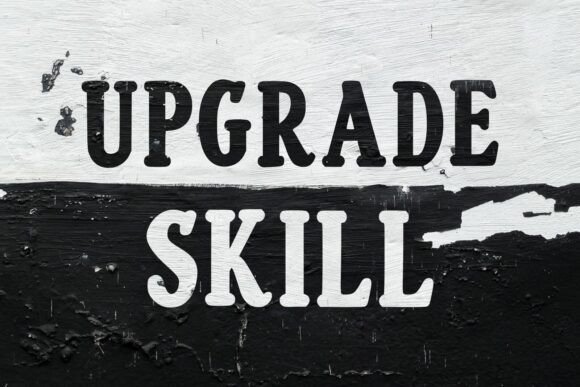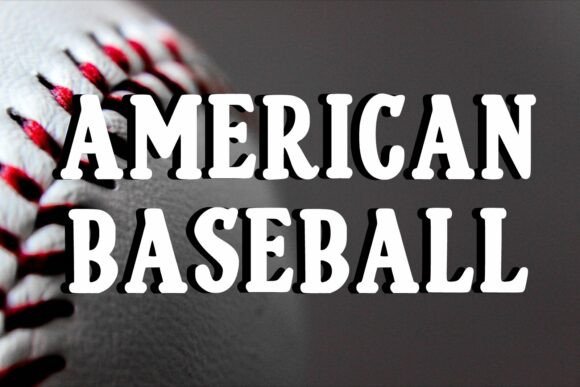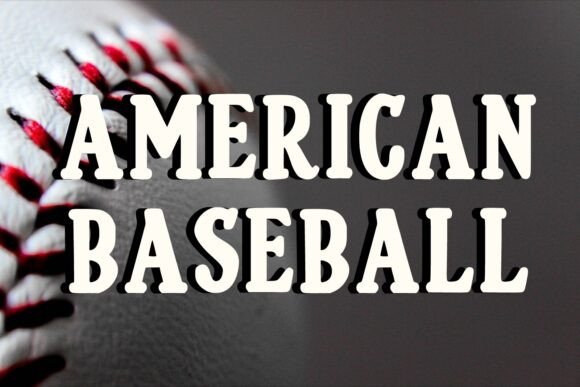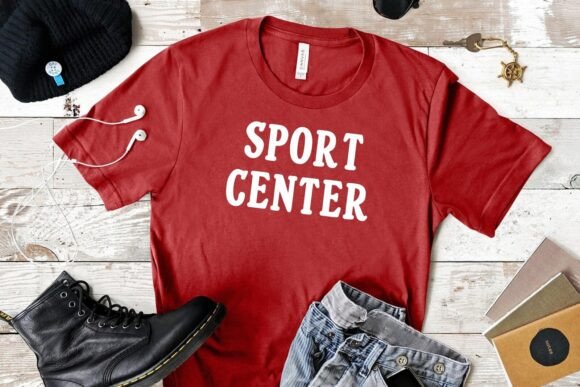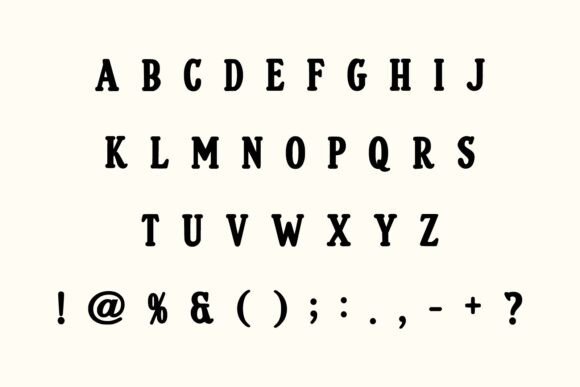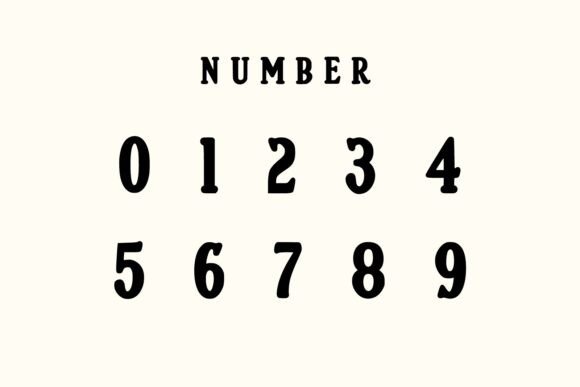
Step Up to the Plate with Baseball Active Font
Do you remember the rush of adrenaline as you watched your favorite team score a home run? The roar of the crowd, the crack of the bat, and the thrill of victory – it’s an experience like no other. For designers, capturing that same energy and excitement in a font can be a challenge. That’s where Baseball Active Font comes in – a sports classic display font inspired by the thrill of baseball.
With its bold and dynamic design, Baseball Active Font is the perfect choice for anyone looking to add a touch of sportsmanship to their design. Its strong and commanding look, complete with thick lines and sharp edges, conveys power and athleticism. Whether you’re designing a sports-themed website, creating a promotional campaign, or simply looking to add some flair to your typography, Baseball Active Font is a valuable addition to any designer’s toolkit.
Baseball Active Font Key Features
- Unique Characteristics: Baseball Active Font features a unique, dynamic design that captures the energy and excitement of the game of baseball. The font’s bold, curved lines and rounded shapes give it a distinctive, hand-drawn feel.
Baseball Active Font Review
When I first stumbled upon the Baseball Active Font, I was intrigued by its playful and energetic vibe. ✨ The font does a great job of capturing the spirit of America’s favorite pastime, making it perfect for sports-related projects or branding.
- ✨ Unique and creative design: The Baseball Active Font has a distinct look that’s both fun and nostalgic.
- ✨ Wide range of applications: This font is versatile and can be used in various contexts, from sports team logos to promotional materials.
However, I do have some reservations:
- ⚠️ Limited legibility at small sizes: The font can become difficult to read when used in very small sizes or in situations with low contrast.
- ⚠️ Not ideal for body text: While the Baseball Active Font is perfect for headings and titles, it may not be the best choice for large blocks of text.
Overall, I think the Baseball Active Font is a great addition to any designer’s toolkit. With its unique design and versatility, it’s sure to add a touch of personality to any project. Just be mindful of its limitations and use it judiciously to get the best results.
Getting the Most Out of Baseball Active Font
For optimal results, use Baseball Active Font for sports-related designs, particularly for baseball and softball themes.
Pair the font with bold, vibrant colors to create a dynamic and energetic look.
Baseball Active Font is ideal for:
- Baseball and softball team logos
- Sports-themed posters and flyers
- Event invitations and promotional materials
Alternatives to Baseball Active Font